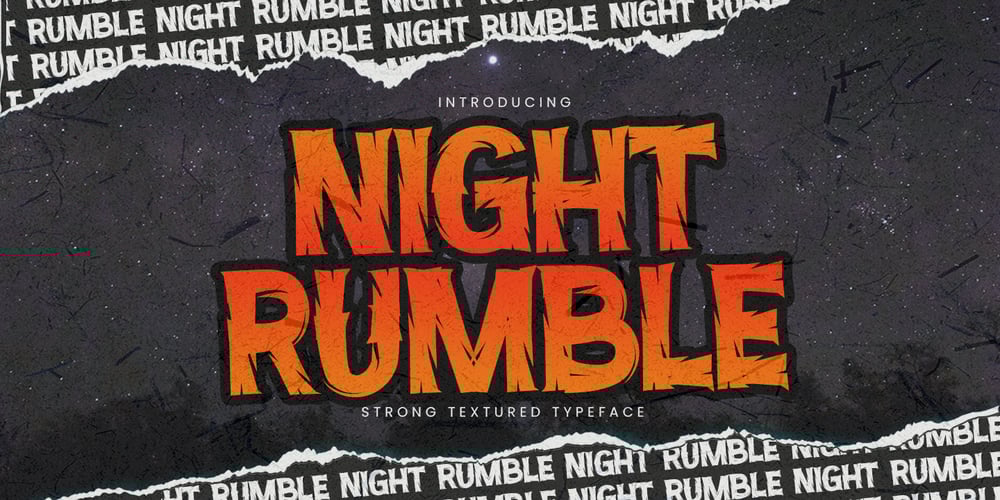
Night Rumble Font Family was designed by Abdul Malik Wisnu, Anang Fibriyanto and published by Gassstype. Night Rumble contains 1 styles and family package options. Introducing Night Rumble is a Strong Textured Typeface that is written casually and quickly.That is why Night Rumble has charming, authentic and relaxed characteristic more natural look to your text with a more natural look to your text. design more interesting. Night Rumble is perfect for homeware designs,branding projects, Logo design, Quotes product packaging.